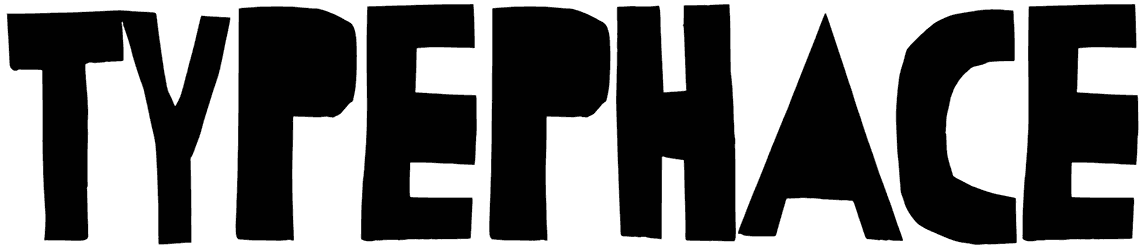
Typephace Font
Are you tired of dry, formal, and unfeeling fonts? So Typephace is the font that can give a fun and different look to your designs. This font with capital letters is suitable for printing in any size and has a warm and eye-catching appearance. You can use this cartoon font to identify a brand or create a social poster, but you need to know that it does not include lowercase letters.
Designed for a university project called Phelt. The lettforms were originally cut out by hand in felt.